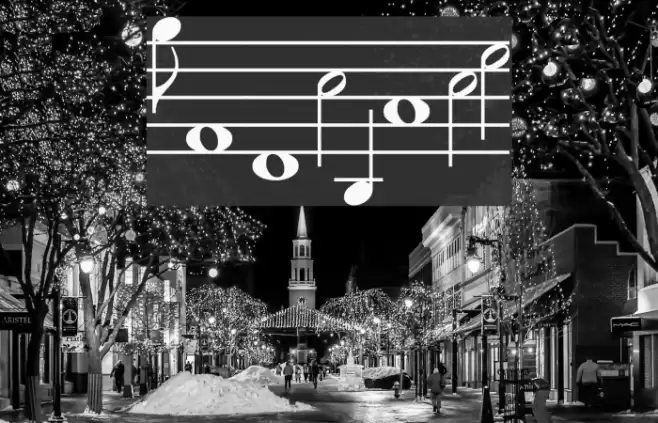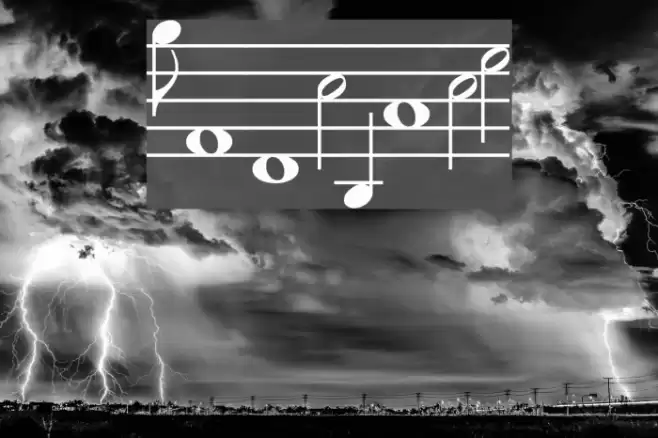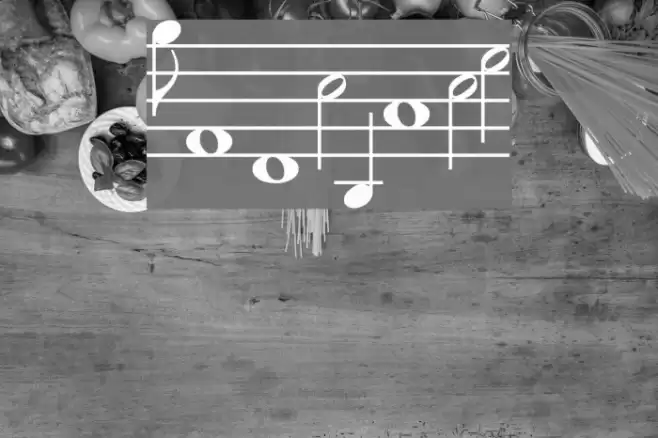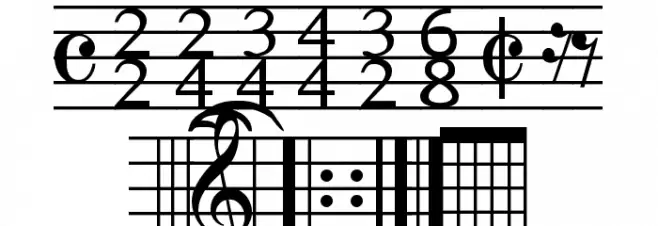
MusiQwik Font
MusiQwik Description
A specialized font designed for musical notation, featuring a variety of note heads, stems, rests, clefs, time signatures, and other music symbols. The glyphs are bold, highly legible, and optimized for clarity on musical staves.
A music notation font for creating sheet music and musical scores from Uncategorized fonts.
- Proposed Projects: Sheet music publishing, music education materials, digital music notation software, instructional books.
- Overall Style: Functional, Specialized
- Use Case: Music notation, Educational materials, Sheet music